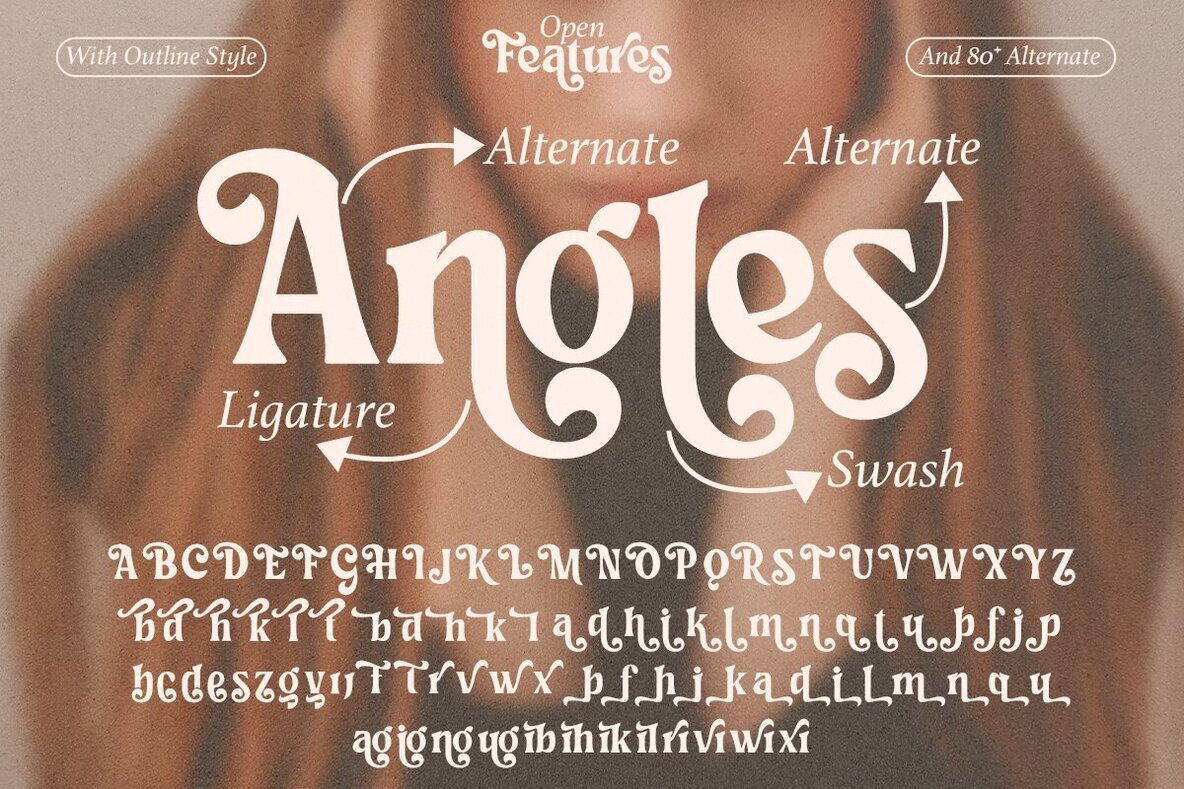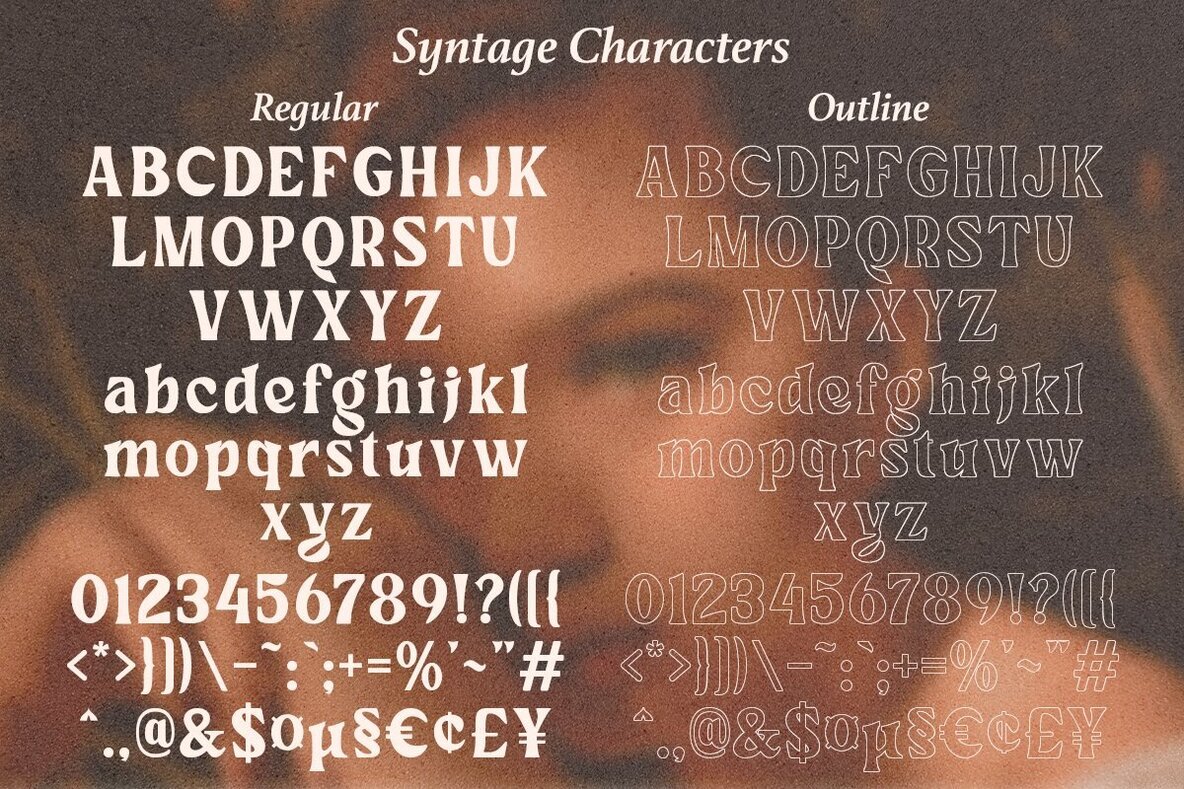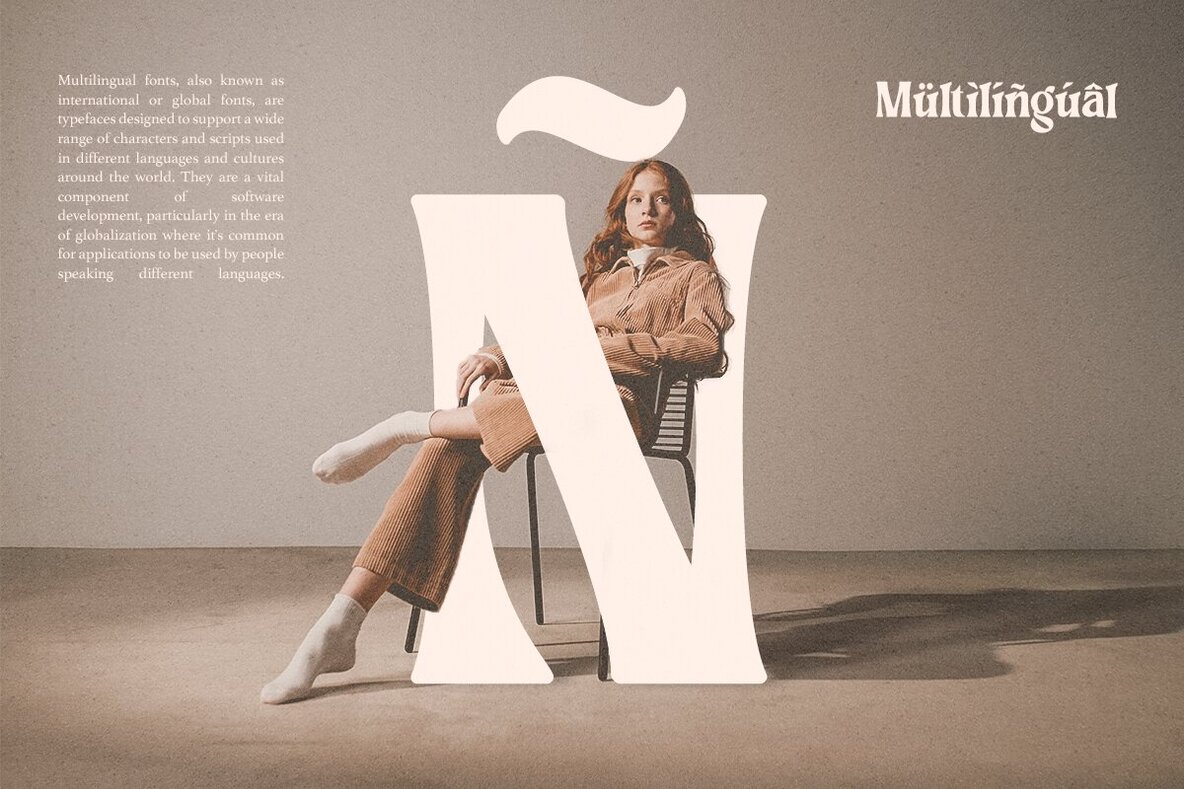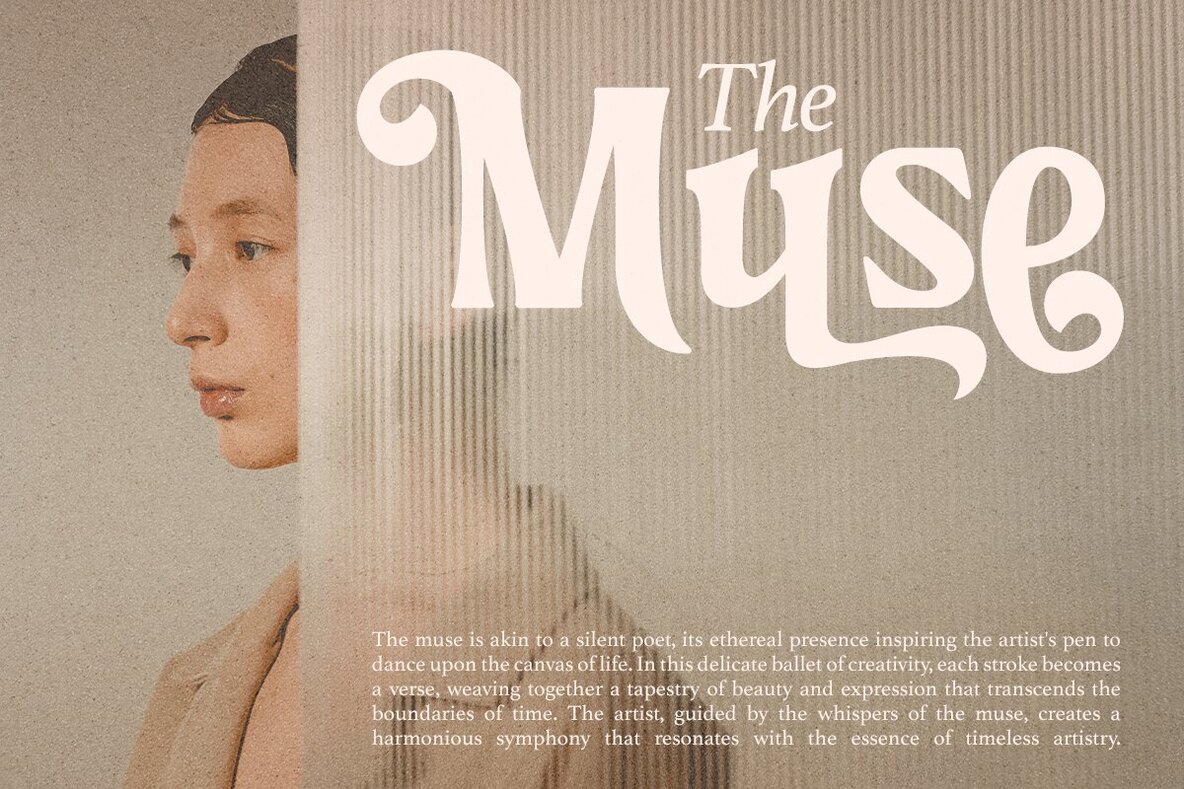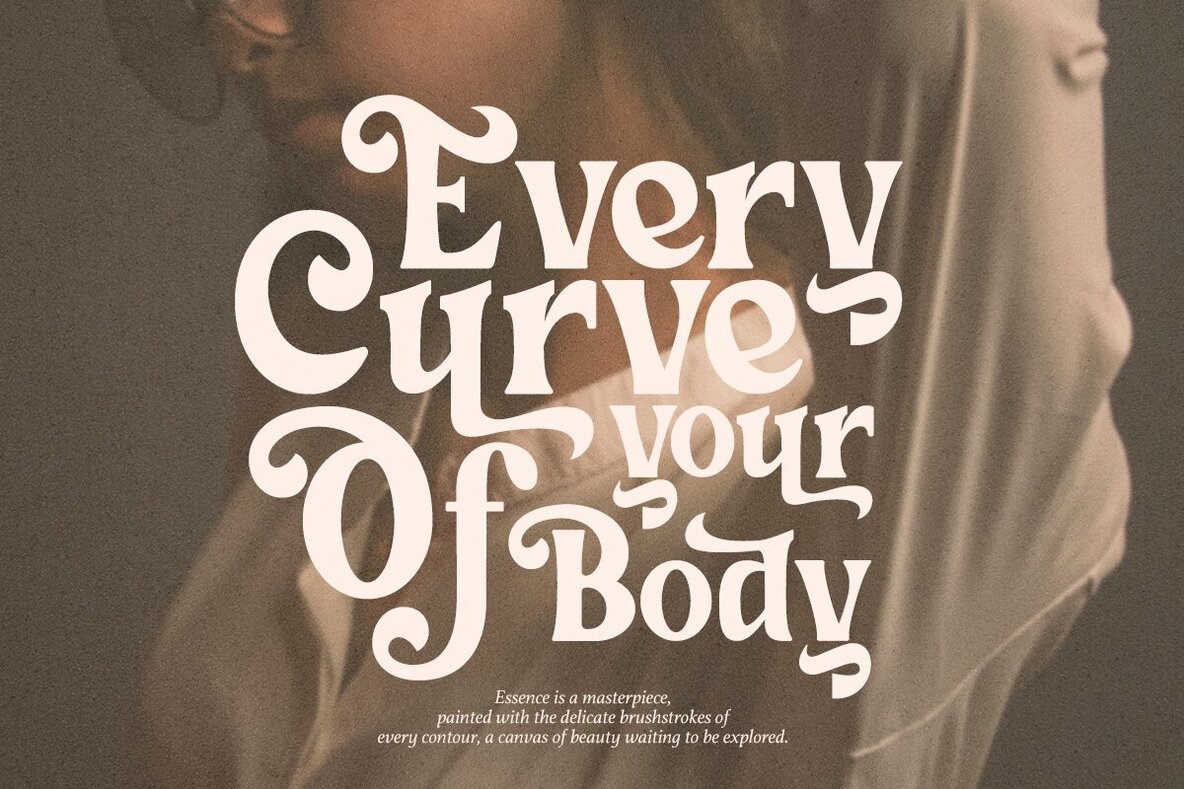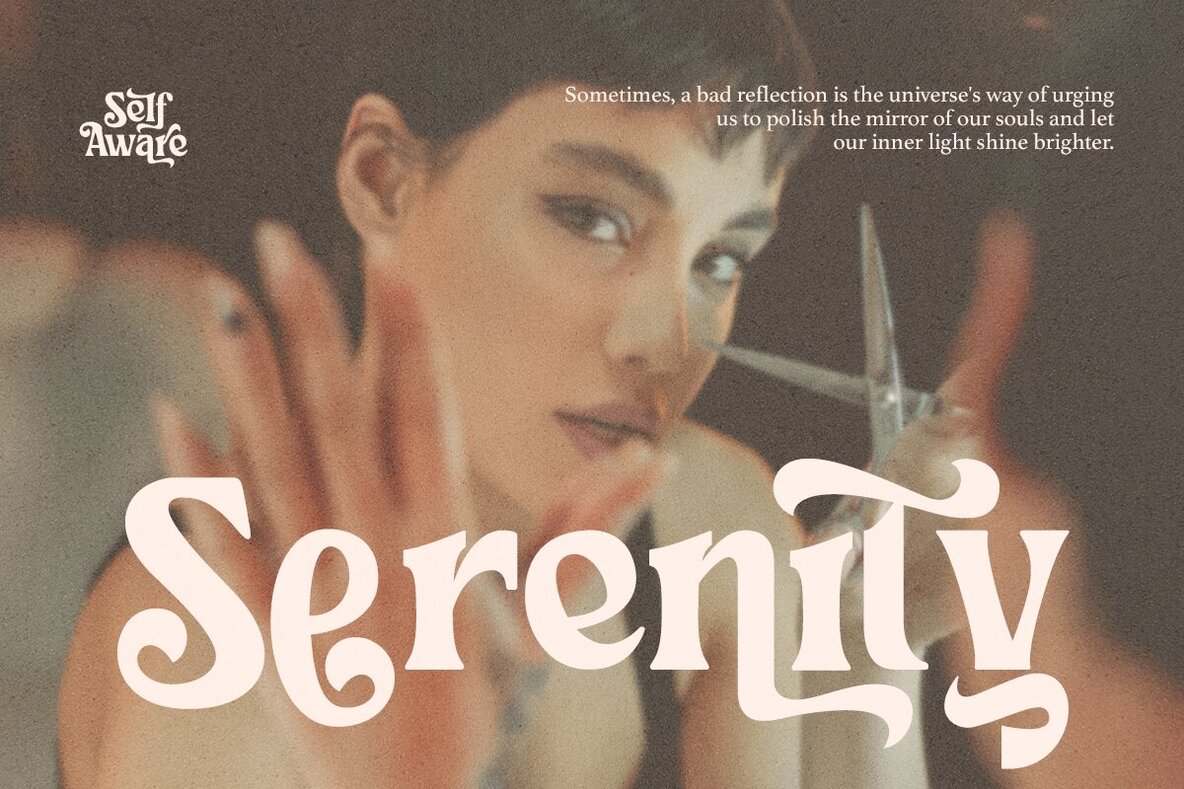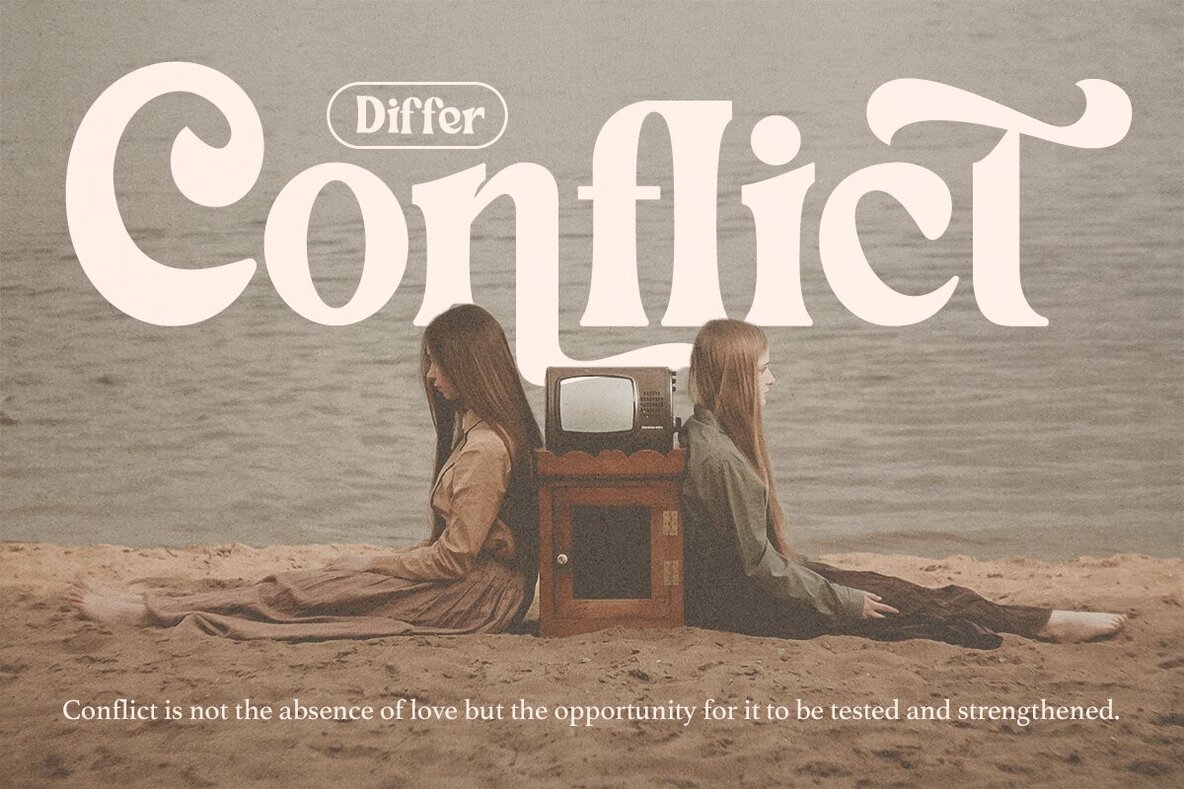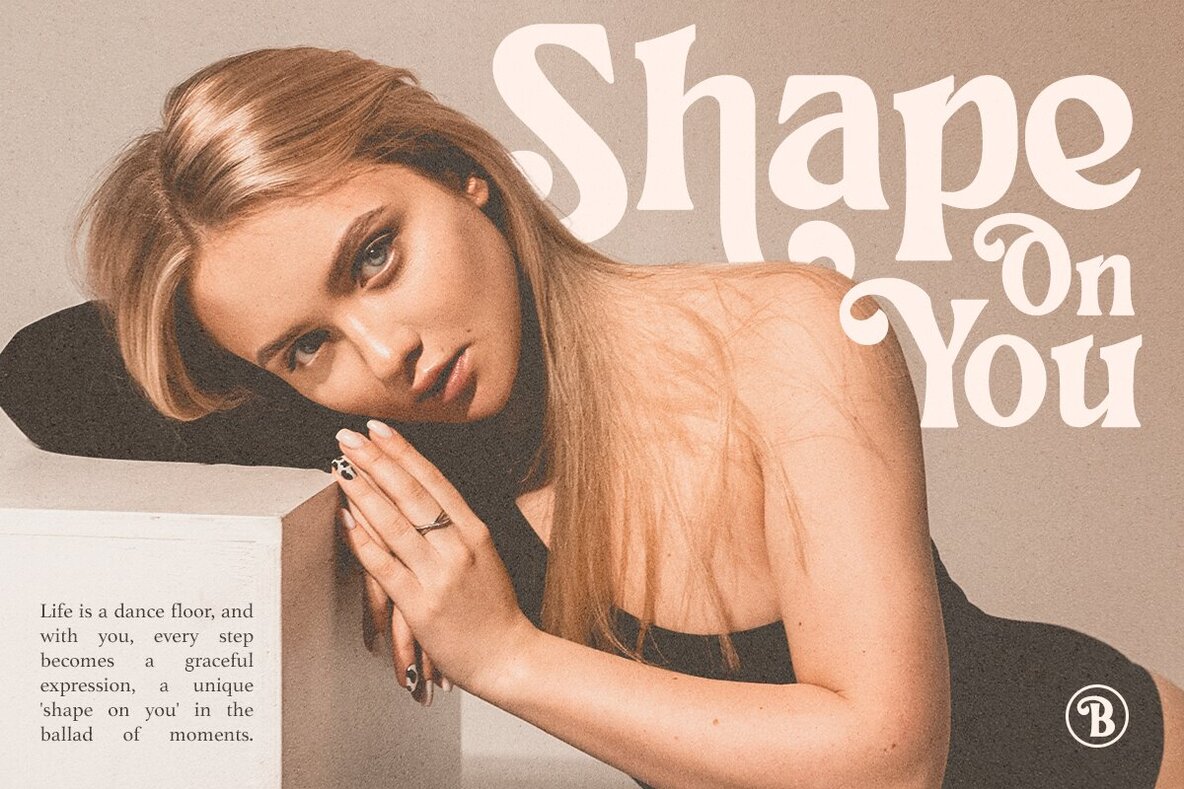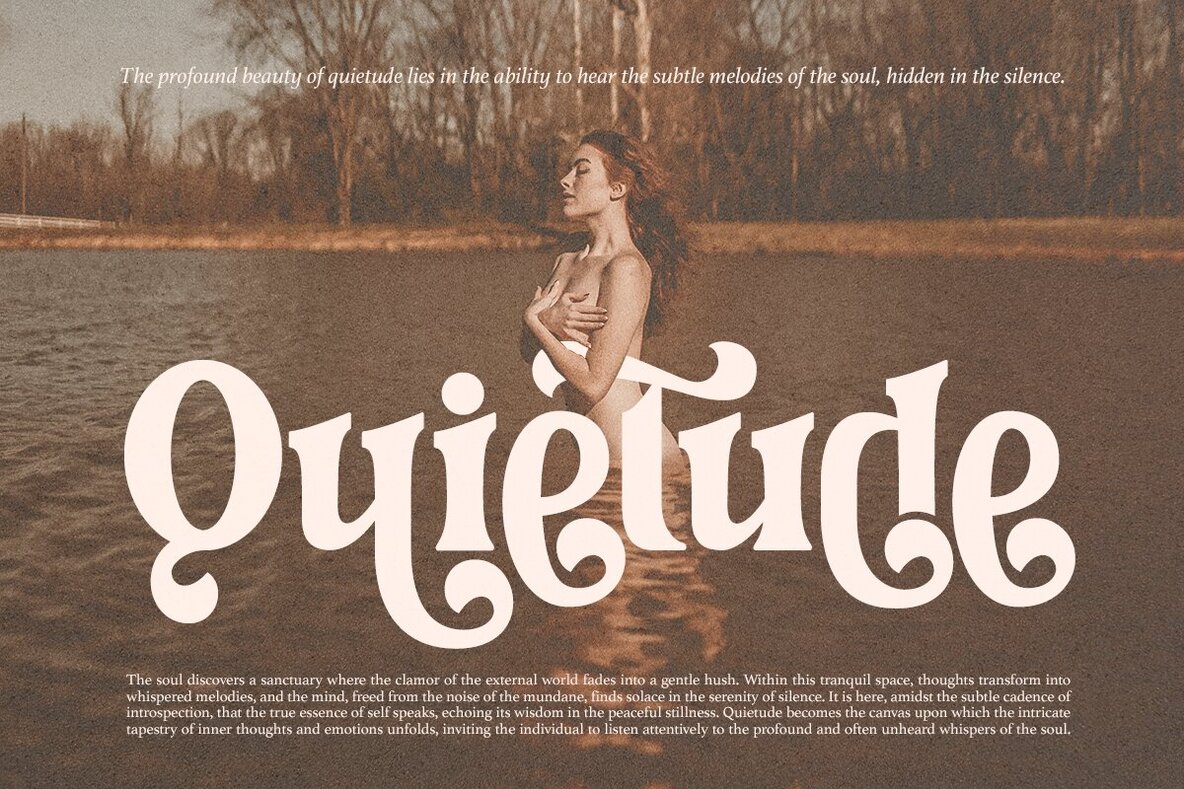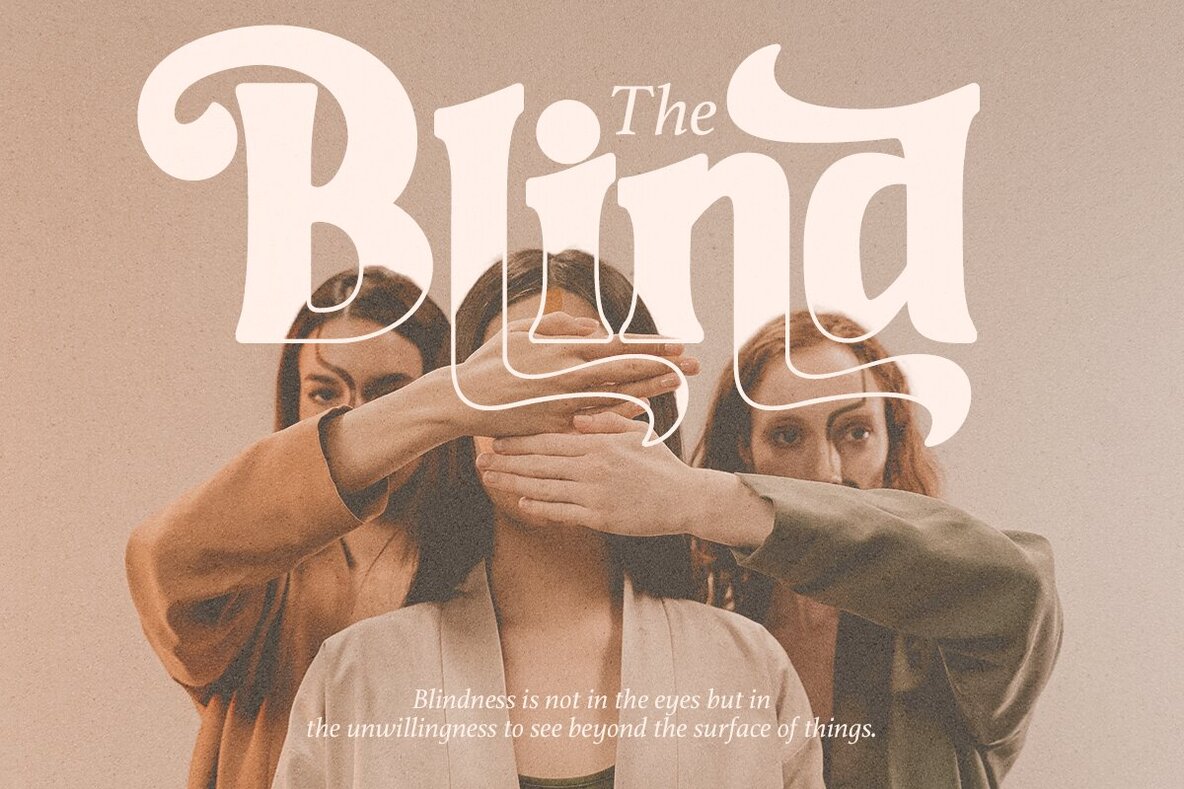
Syntage Font
Syntage Regular
Syntage Outline
The Syntage font from Dharmas Studio introduces a nostalgic serif design infused with the charm of the 80s and 90s. This typeface brings back the classic, tightly-spaced serifs that are making a resurgence in today's design world. Syntage is a beautifully crafted serif font featuring both uppercase and lowercase letters. It offers over 80 special alternates that look stunning whether used in large displays or as body text. It combines beautifully in its regular and outline versions, enhancing both word art and textual compositions. The Syntage font supports a diverse range of languages, including Danish, English, Estonian, Filipino, Finnish, French, Friulian, Galician, German, Gusii, Indonesian, Irish, Italian, Luxembourgish, Norwegian Bokmål, Norwegian Nynorsk, Nyankole, Oromo, Portuguese, Romansh, Rombo, Spanish, Swedish, Swiss-German, and Uzbek (Latin).Syntage: Nostalgic Serif with a Modern Twist